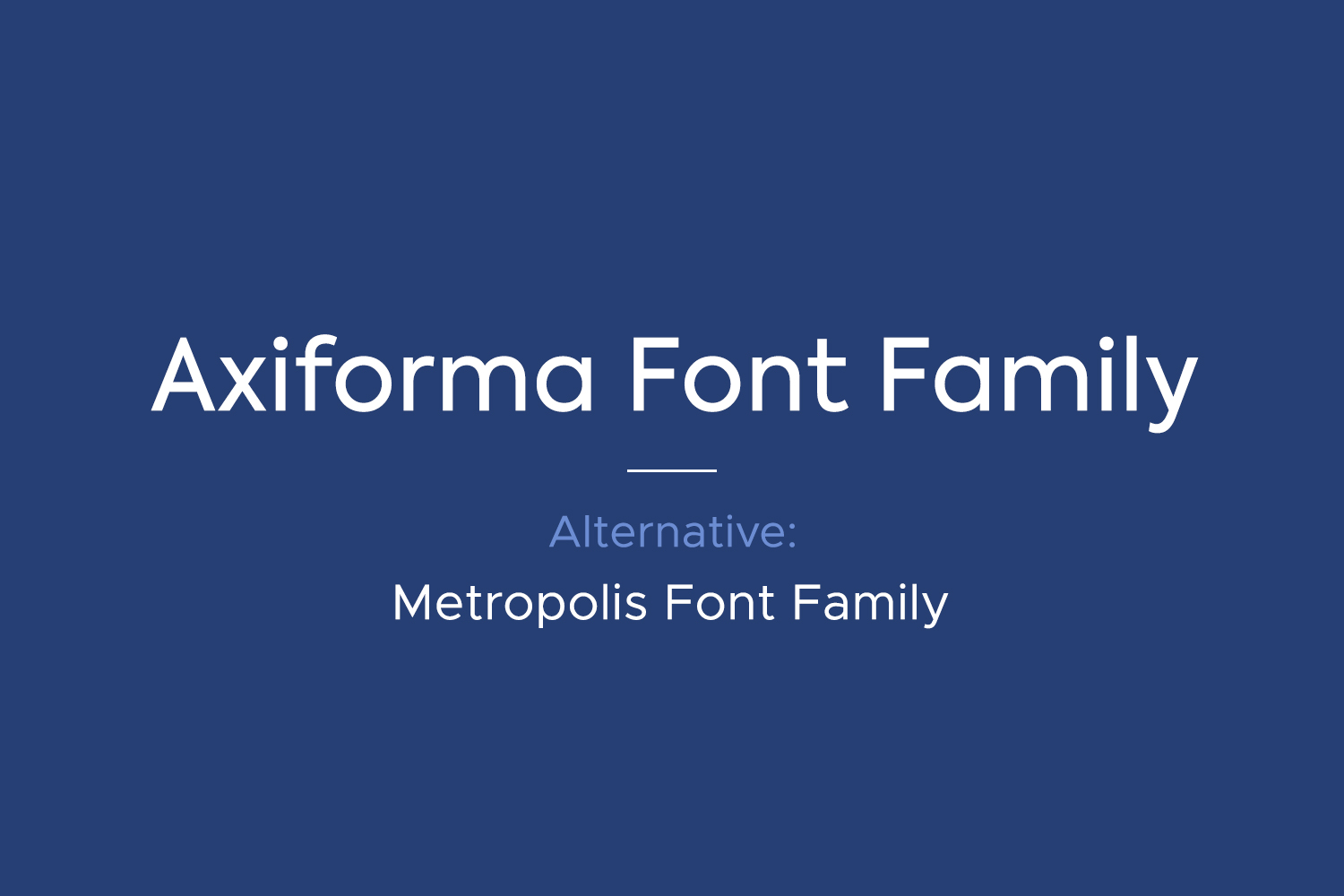
Axiforma Free Alternative
Axiforma Free Font Family was designed by Galin Kastelov and published by Kastelov. Axiforma was designed with the single idea of creating a font that starts with the letter A, because let’s face it, this is the best letter. For those of you who didn’t see it coming, Axiforma is a /drum roll/ geometric sans in 20 weights.
Here we are providing you free alternative font family to Axiforma:
Axiforma Thin – Metropolis Thin
Axiforma Thin Italic – Metropolis Thin Italic
Axiforma Light – Metropolis Light
Axiforma Light Italic – Metropolis Light Italic
Axiforma Regular – Metropolis Regular
Axiforma Italic – Metropolis Italic
Axiforma Medium – Metropolis Medium
Axiforma Medium Italic – Metropolis Medium Italic
Axiforma Semi Bold – Metropolis Semi Bold
Axiforma Semi Bold Italic – Metropolis Semi Bold Italic
Axiforma Bold – Metropolis Bold
Axiforma Bold Italic – Metropolis Bold Italic
Axiforma Extra Bold – Metropolis Extra Bold
Axiforma Extra Bold Italic – Metropolis Extra Bold Italic
Axiforma Black – Metropolis Black
Axiforma Black Italic – Metropolis Black Italic
There is free similar font family to Axiforma. We tried our best to find the best matching fonts of the Axiforma Font Family.